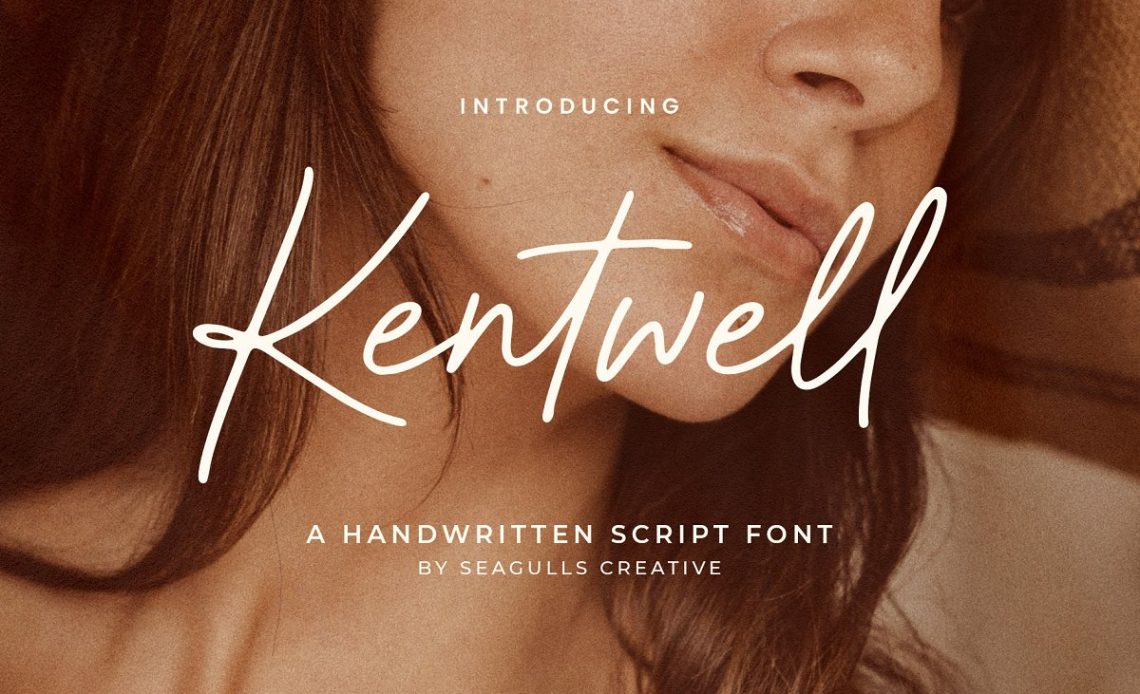
Introducing Kentwell, the epitome of modern elegance in the form of a handwritten font. Created by Seagulls Creative, this font is perfect for any project that requires a touch of sophistication and style.
With its versatile script family, Kentwell is the ideal choice for branding, labels, photography, invitations, stationery, wedding designs, social media posts, advertising, product packaging, and product design. The possibilities are endless!
But that's not all - Kentwell also offers multilingual support, making it a truly global font for your international projects. No matter where your audience is, this font will speak their language.